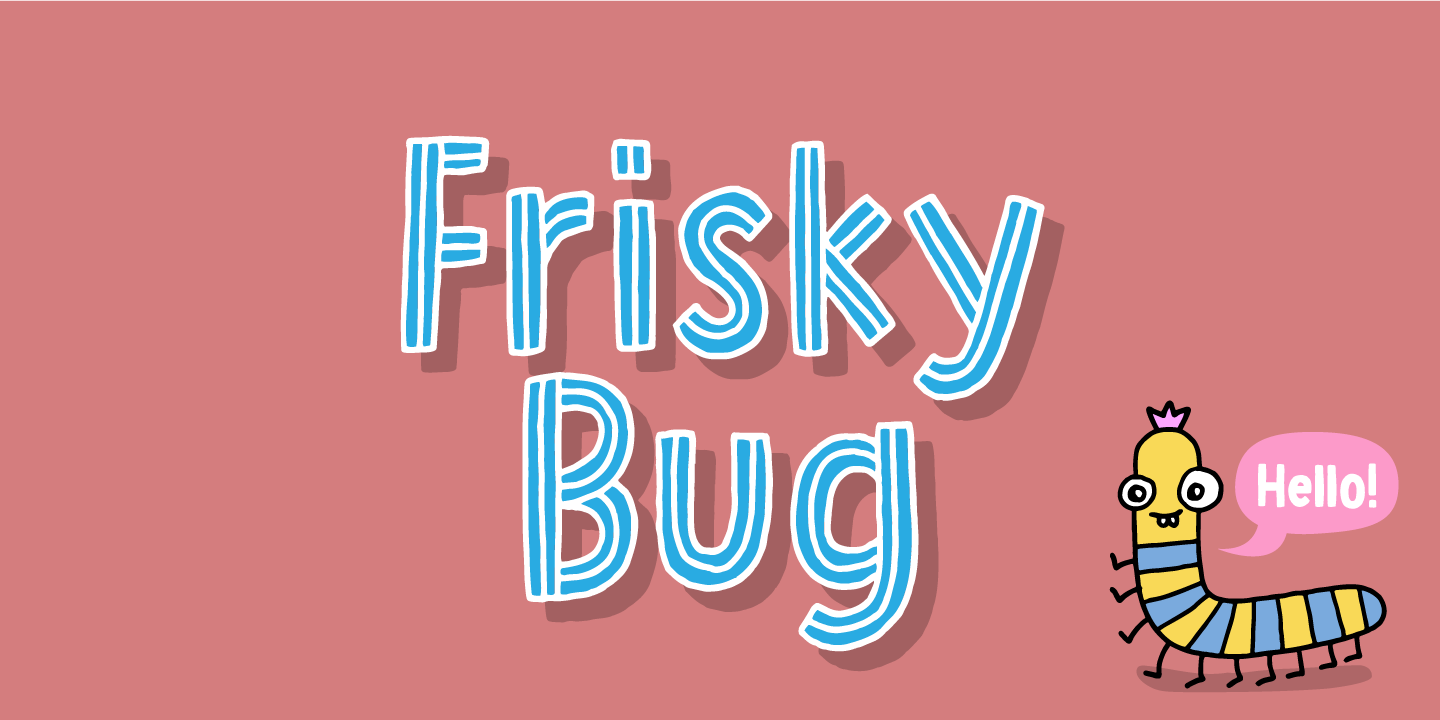
Frisky Bug Font is perfect for children's insect education materials, nature discovery programs, playful garden center branding, bug-themed party invitations, whimsical science museum exhibits, entomology club promotions, outdoor adventure camps, and creative nature exploration campaigns.
This font is exciting because it captures the playful energy of curious insects with whimsical charm and natural sophistication. Frisky Bug Font features bouncy letterforms with bug-inspired movements that evoke the delightful world of garden creatures and nature exploration, making it ideal for projects that require authentic playfulness and educational appeal.
The Frisky Bug Font family includes regular, light, bold, and playful variants, along with insect-inspired alternates and nature ligatures that enhance its whimsical character. Each weight maintains the font's energetic aesthetic while providing different levels of playful expression for various educational and nature design applications.
Whether you're developing engaging nature brands, creating compelling educational materials, or designing playful outdoor campaigns, Frisky Bug Font Free Download delivers exceptional energy and natural appeal. Its distinctive insect style makes it an excellent choice for designers seeking to add genuine nature curiosity and educational sophistication to their projects. The font's versatility extends from children's nature books to outdoor education signage, ensuring consistent performance across all playful applications. With its energetically crafted letterforms and insect proportions, this typeface provides professional results that inspire nature exploration and establish joyful brand presence with its unmistakable bug character and delightful natural elegance.